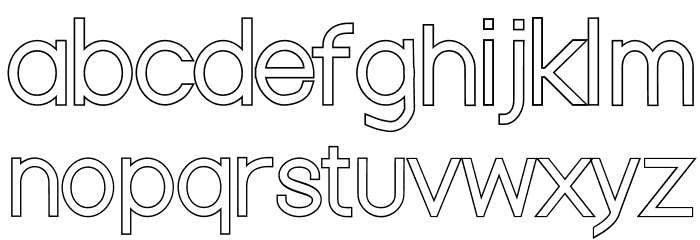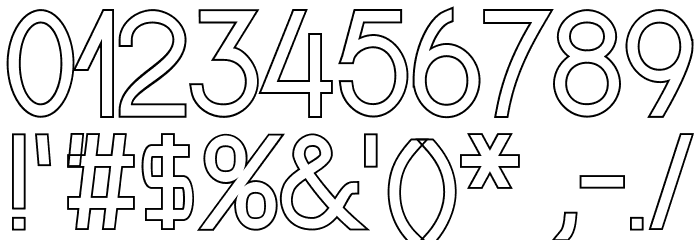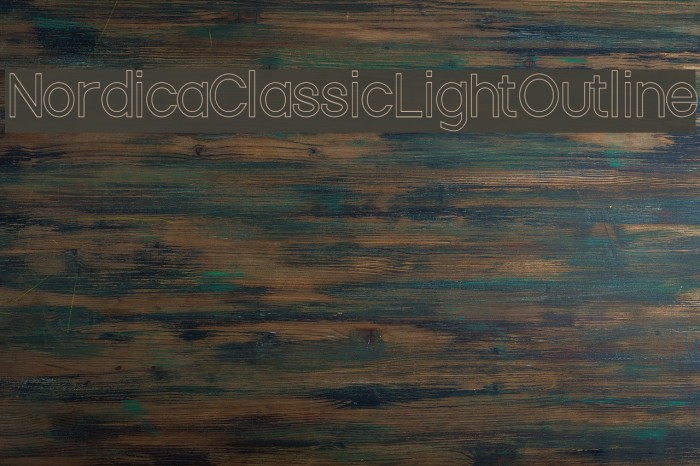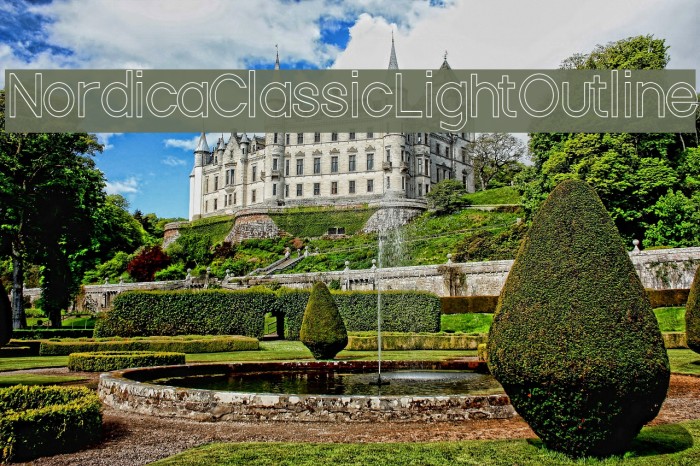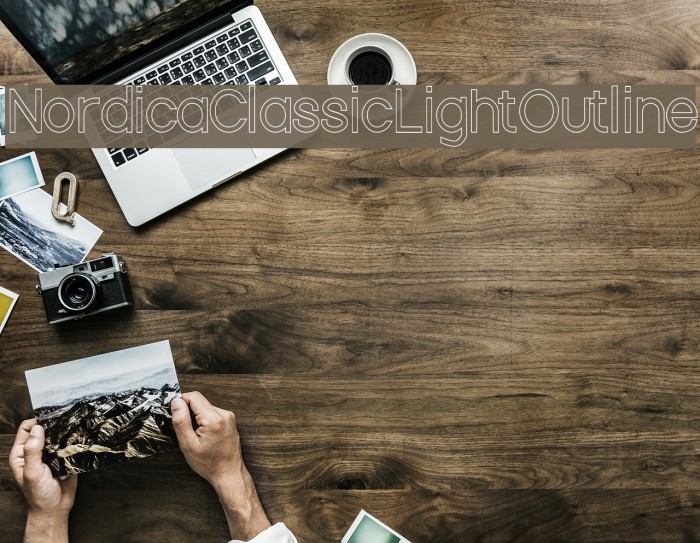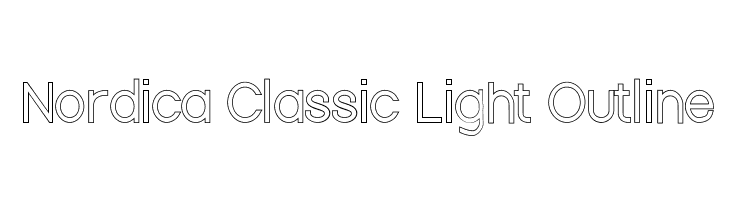
Nordica Classic Light Outline Font
This font features a clean and modern outline style, characterized by its geometric shapes and uniform line thickness. The uppercase and lowercase letters maintain a consistent height and width, creating a harmonious and balanced appearance. The numerals and special characters follow the same design principles, ensuring a cohesive look across all elements. The font's outline nature gives it a light and airy feel, making it suitable for designs that require a subtle yet impactful presence. Its simplicity and clarity make it versatile for various applications.
A modern, geometric outline font with consistent line thickness and balanced proportions.
- Proposed Projects: Ideal for branding, posters, headlines, and minimalist design projects where a modern and clean aesthetic is desired.